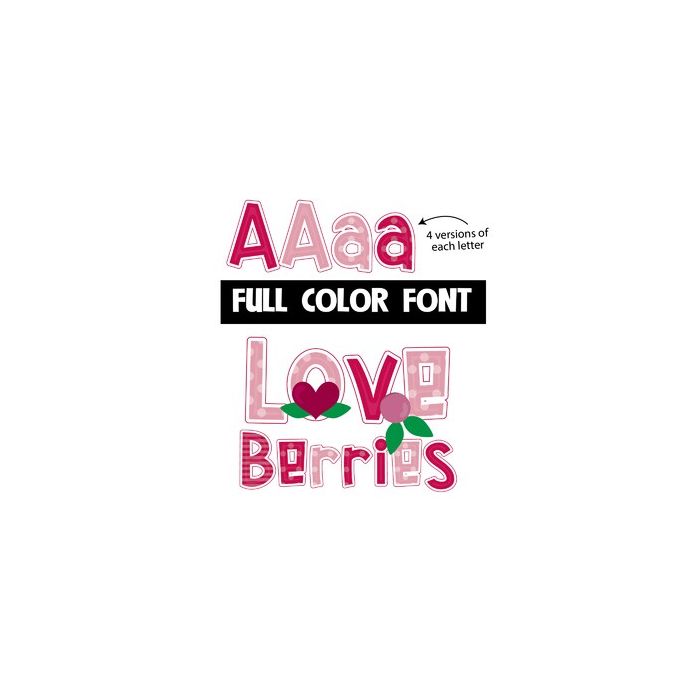
This full-color font features polka dots and stripes in pink with additional "berries" and "hearts" that you can access and use to decorate your font. Type greater than, less than, and the bar to get the berries and hearts. There is a second version of all letters you can access through Silhouette's glyph map.